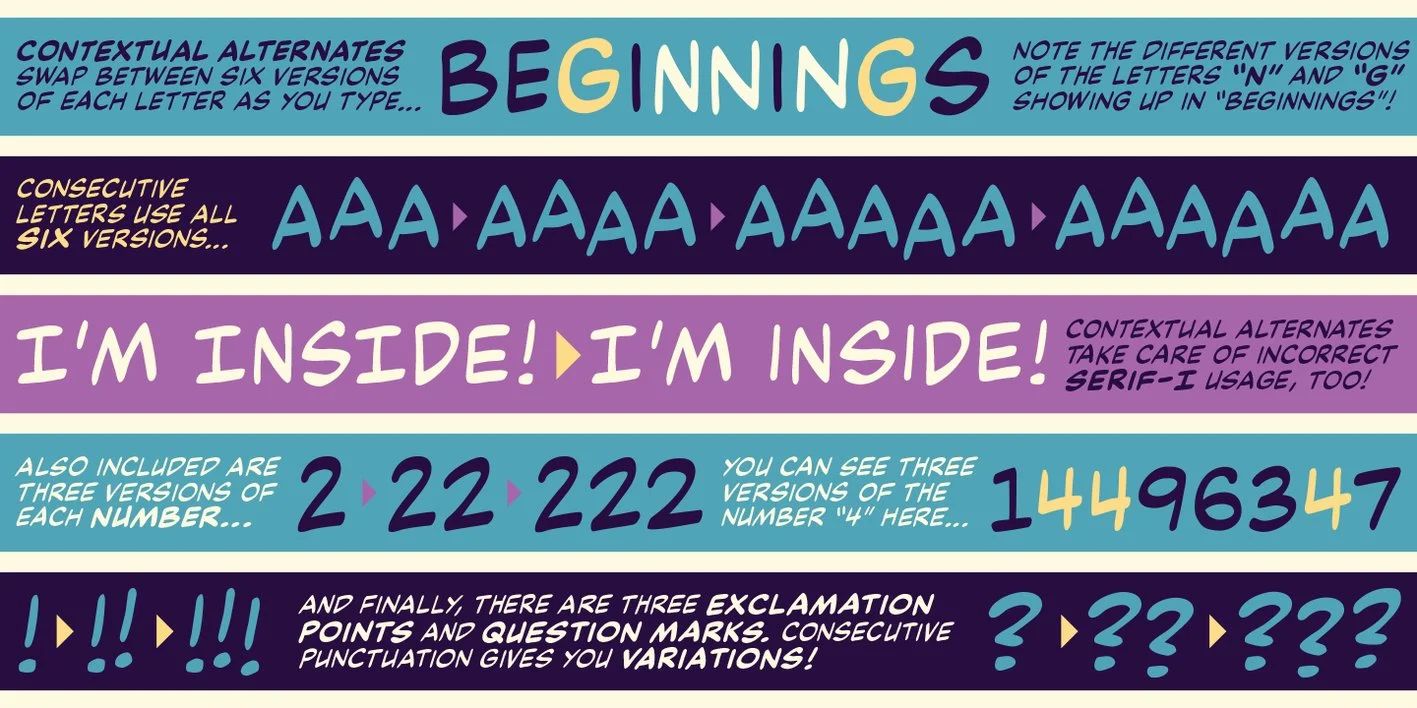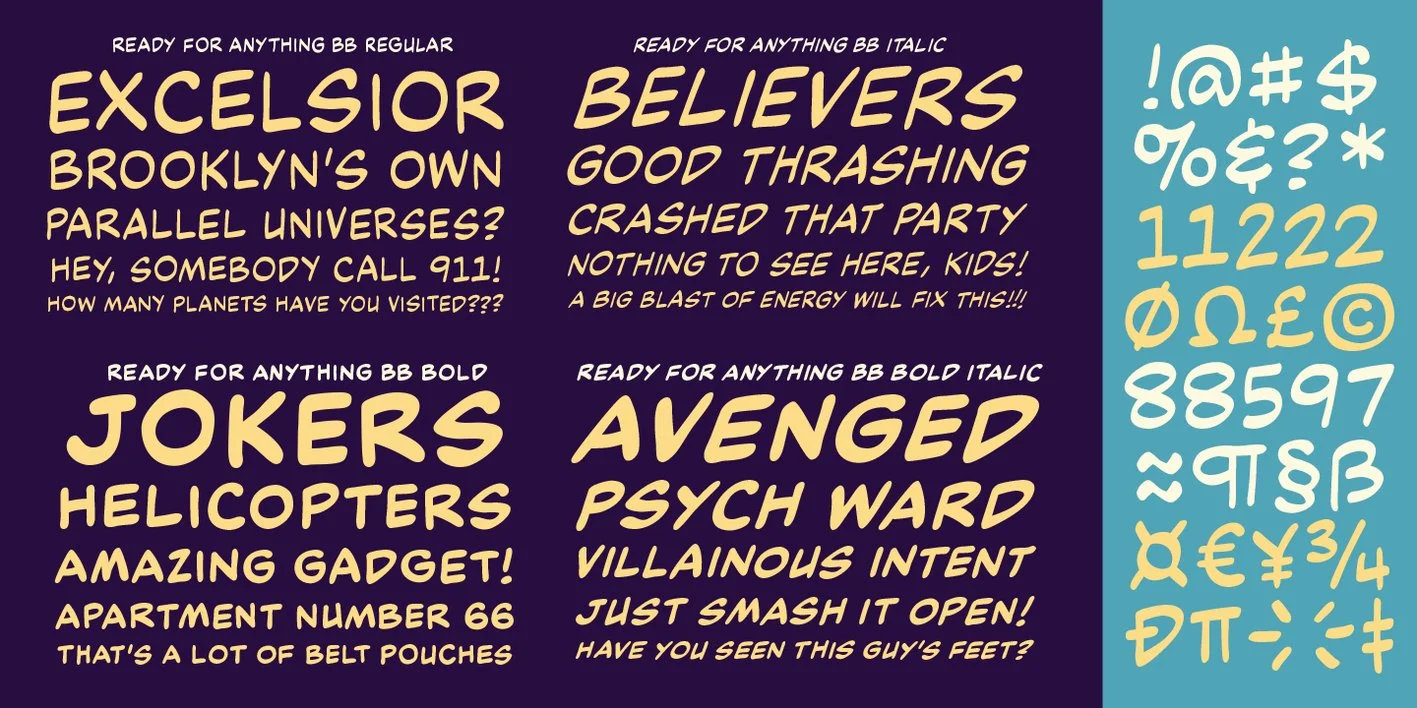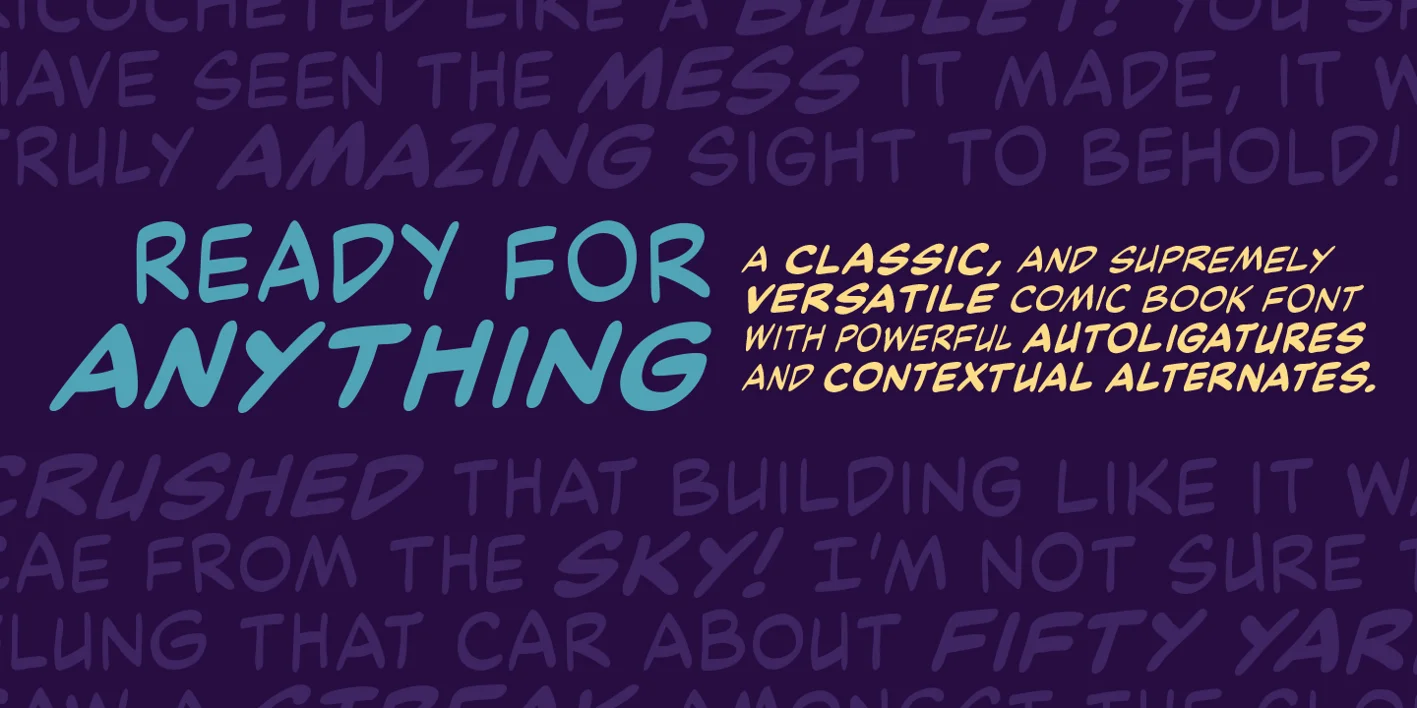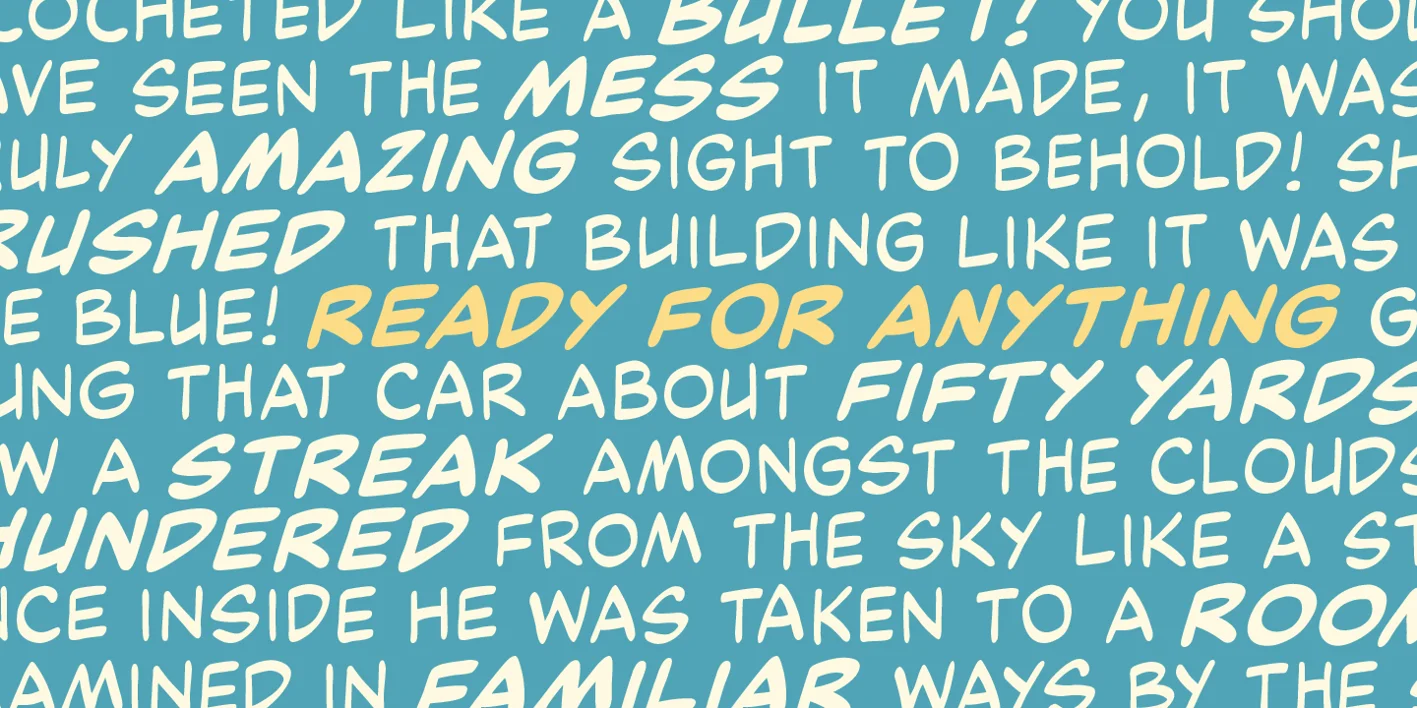
Ready For Anything BB Font
Few typefaces manage to balance consistent type colour across continuous text with genuine day-to-day practicality. Ready For Anything BB is one of them. The typeface brings a versatile sensibility to a broad range of creative disciplines, with visual harmony and precise spacing that holds up whether the work is print-first or screen-first.
In practice, Ready For Anything BB proves particularly effective for social media graphics, signage systems, web design, product labels, brand identity systems. Designers reaching for it find that the type decisions feel resolved rather than laboured — a useful quality when client timelines are tight.
The range of applications extends to poster creation, annual reports, advertising campaigns, packaging design. That breadth is deliberate: the proportions and spacing were stress-tested across a wide range of mock briefs before the typeface was finalised.
Spacing and kerning pairs have been individually reviewed for the most common letter combinations in English and major European languages. The result is even type colour across continuous text, with no awkward gaps or collisions between adjacent characters.
At smaller sizes the design retains its character without becoming cluttered. This resilience across scales makes Ready For Anything BB equally suitable for a business card and a billboard — a useful property when assets must scale across a campaign.
Motion designers building title sequences and lower thirds find Ready For Anything BB a reliable choice for projects that demand both personality and restraint. The design avoids the self-conscious quirkiness that dates quickly, settling instead for considered distinctiveness that holds up over time.